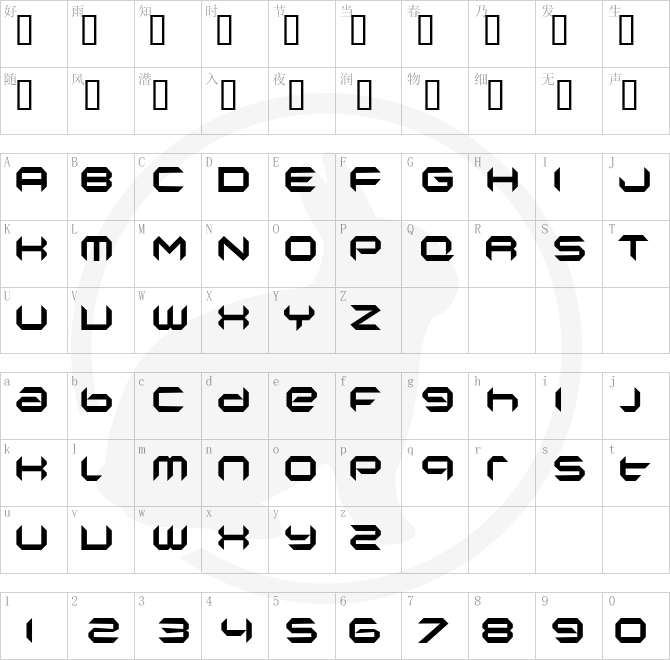
- Font Name:Nano
Nano-low.ttf is a very beautiful artistic font, Nano-low.ttf is widely used in the design and printing of various books and pictures,Nano-low.ttf has a strong visual impact,Nano-low.ttf is a commonly used font in newspapers, magazines and books, and is used in posters, e-commerce Poster design, store design, logo design, font design and other fields.Nano-low.